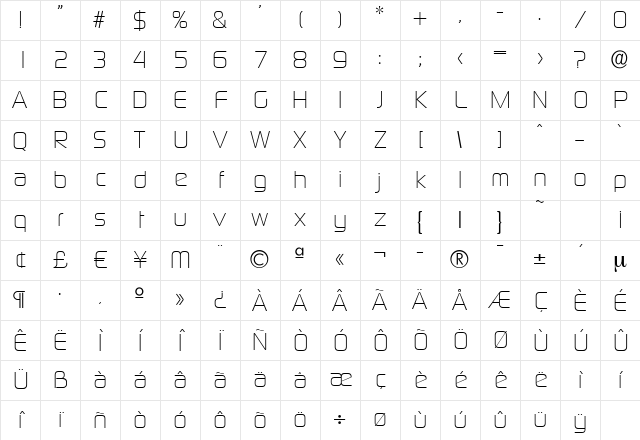
RandyBecker Regular
Design Context for RandyBecker
RandyBecker is a composed and adaptable typeface that performs quietly and consistently across a wide range of design contexts.